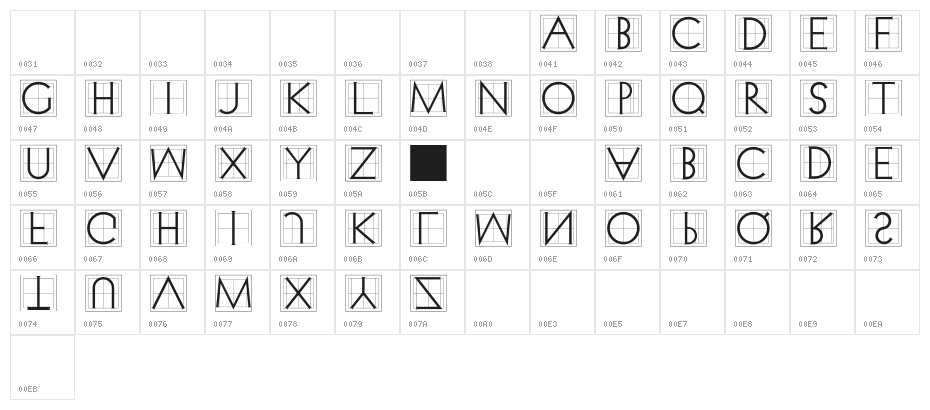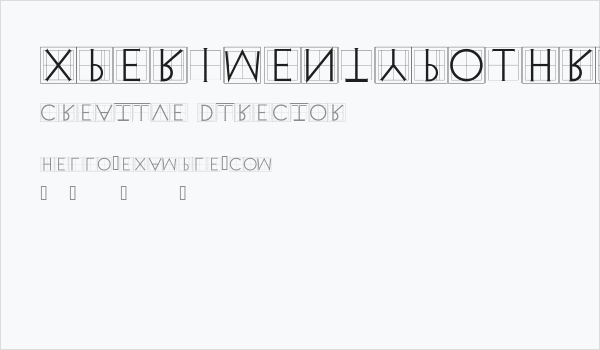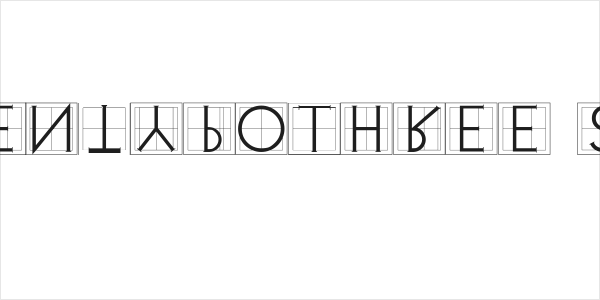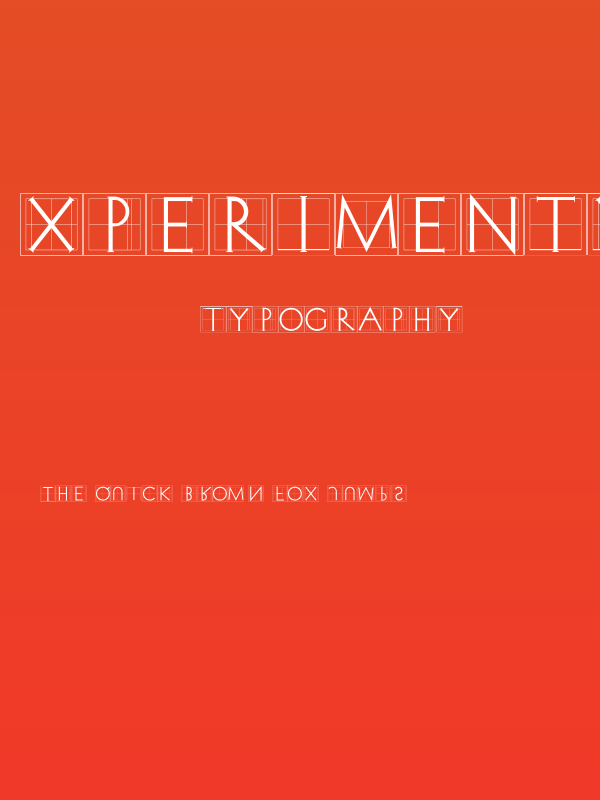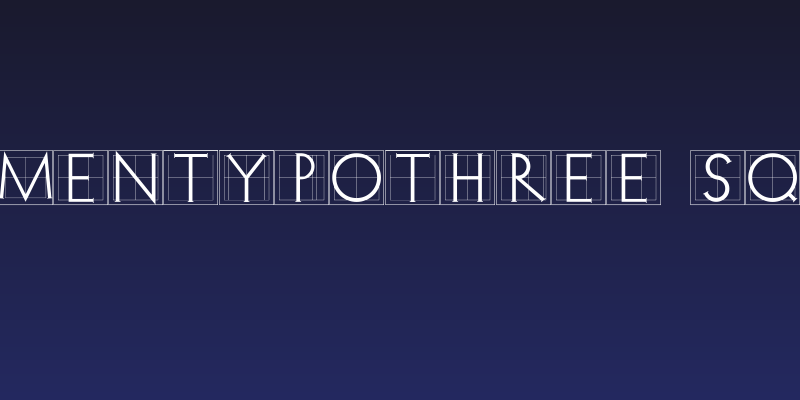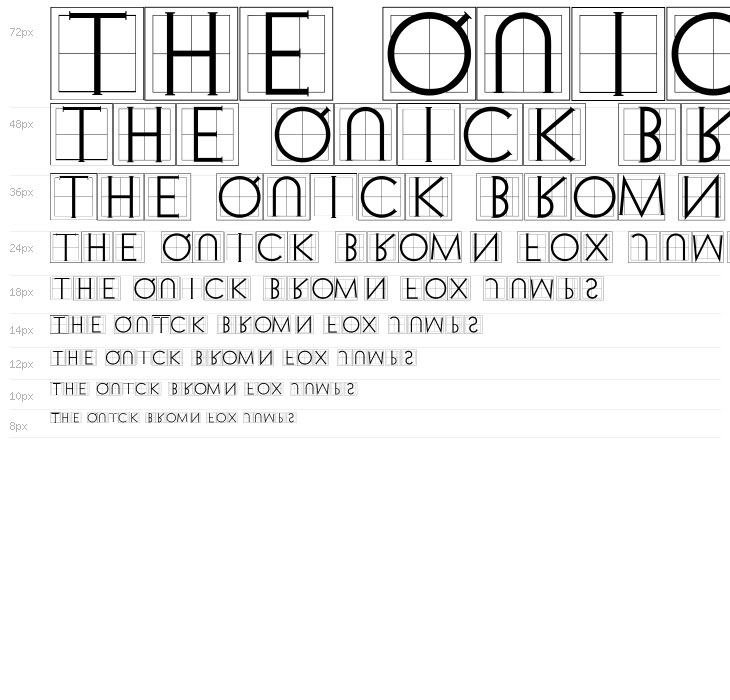
XperimentypoThree Squares Font
XperimentypoThree Squares Description
This font features a unique geometric design, where each character is encapsulated within a square grid. The letters are constructed with a combination of straight lines and curves, giving them a modern and experimental look. The uppercase and lowercase letters maintain a consistent style, with a focus on symmetry and balance. The numbers and special characters follow the same design principles, ensuring uniformity across the font. The overall appearance is bold and striking, making it suitable for creative and artistic projects.
| Overall Style | Modern, Experimental |
| Proposed Projects | Ideal for modern art projects, experimental design work, creative posters, and unique branding materials. |